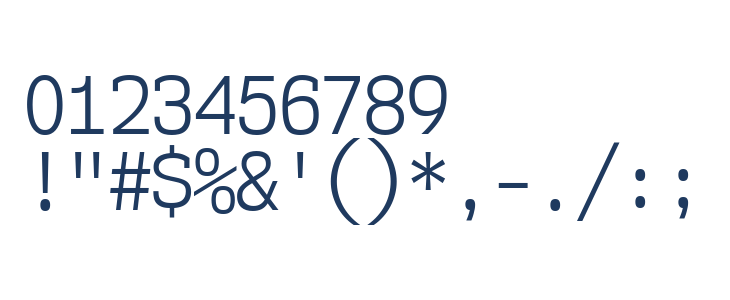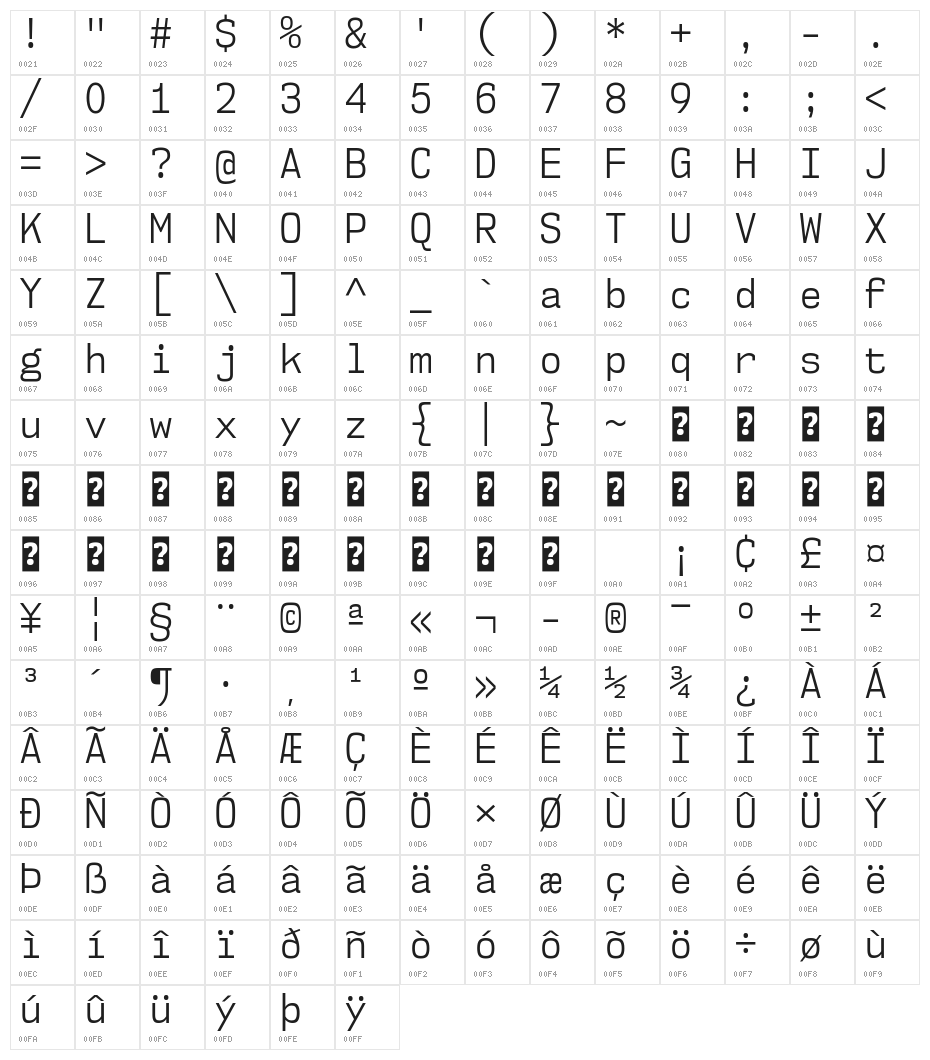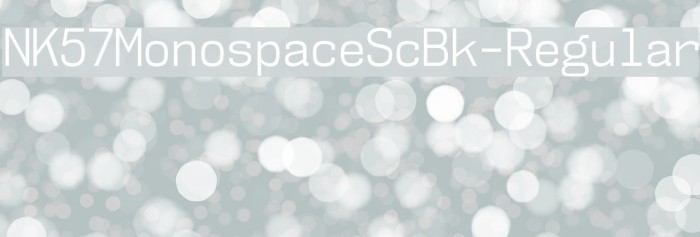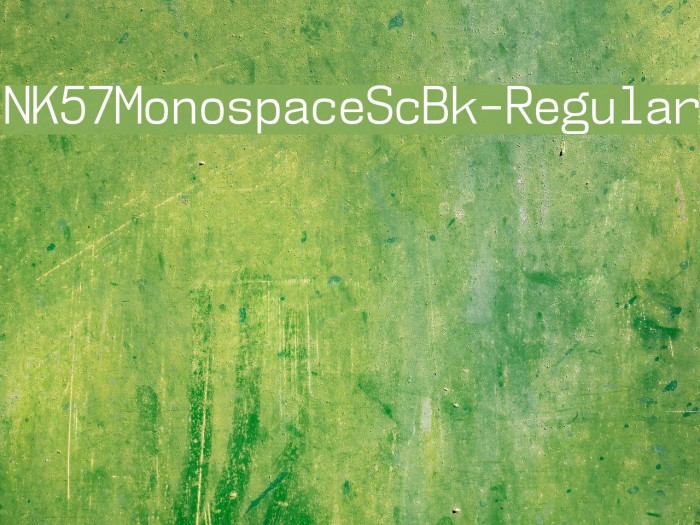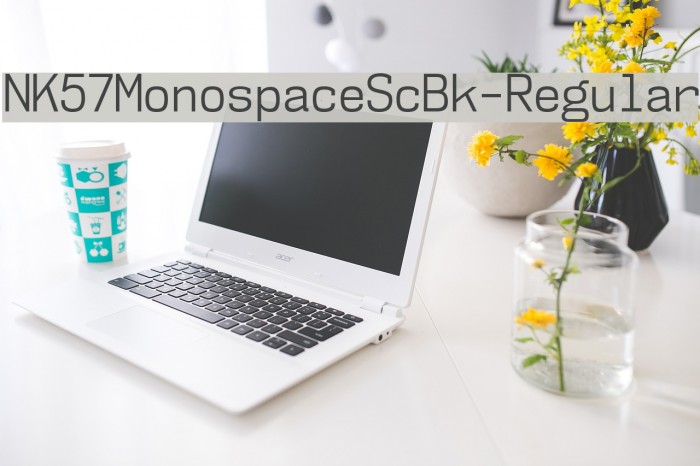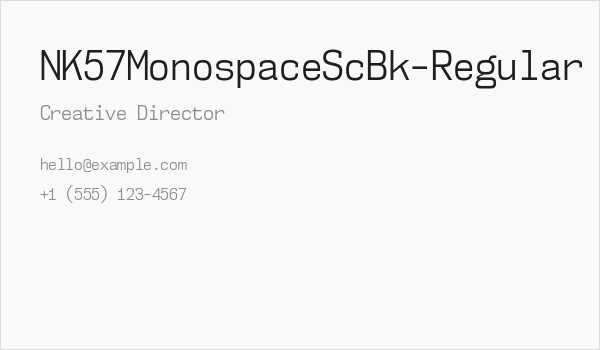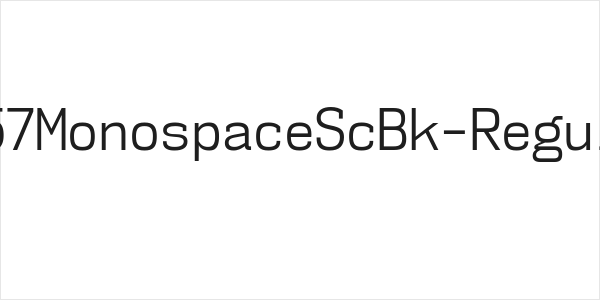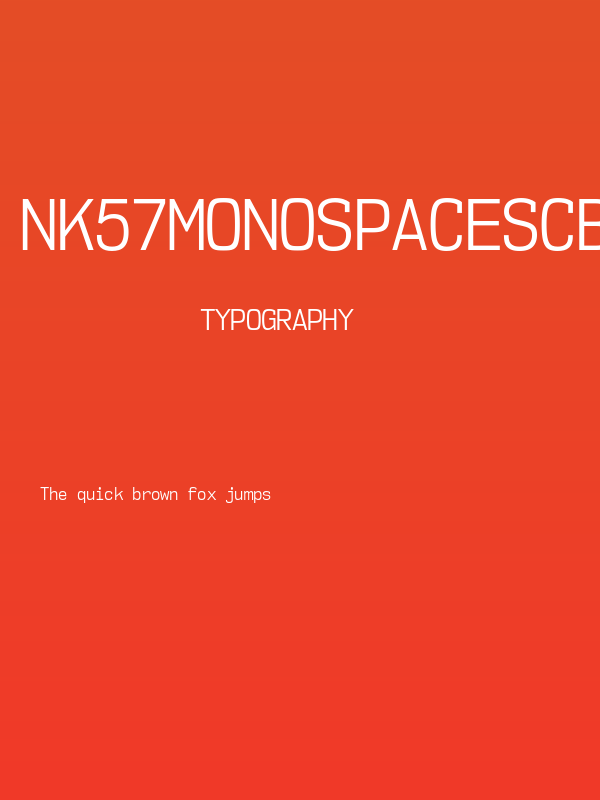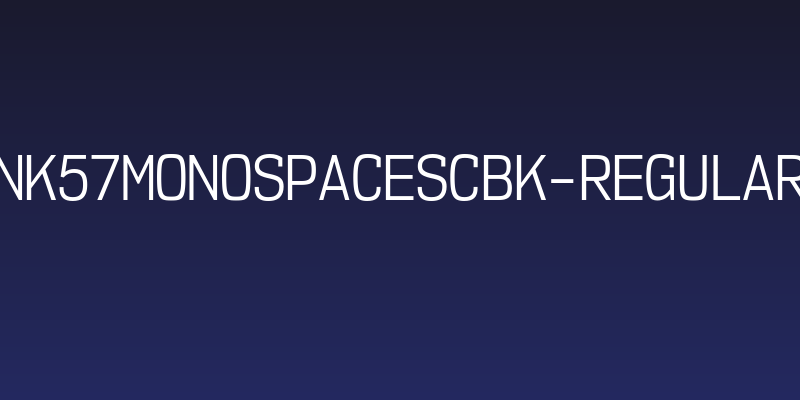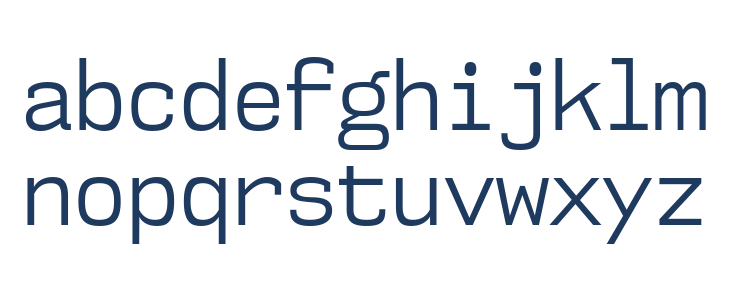
NK57MonospaceScBk-Regular Font
NK57MonospaceScBk-Regular Description
This font is a clean and modern monospaced typeface, characterized by its uniform spacing and geometric structure. Each character occupies the same amount of horizontal space, making it ideal for coding and tabular data. The design is straightforward with minimal contrast in stroke thickness, providing a balanced and consistent appearance. The uppercase letters are bold and assertive, while the lowercase letters maintain a simple and clear form. Numerals are distinct and easy to read, and the special characters are well-defined, ensuring clarity in technical contexts.
| Use Case | Coding, Technical documentation, Data tables |
| Proposed Projects | Ideal for coding environments, technical documentation, and data tables. |